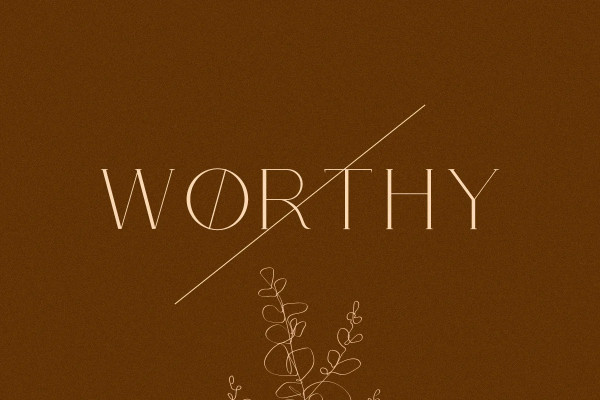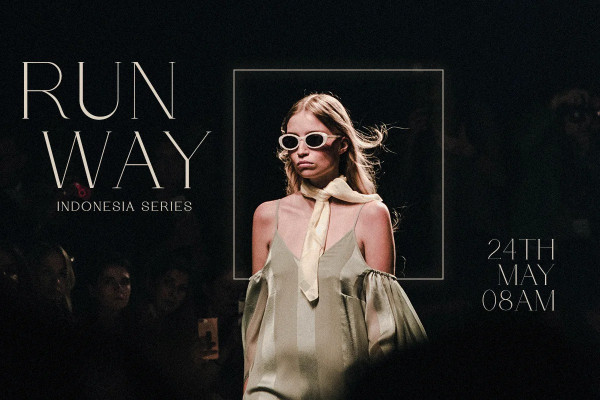
Leony Font
Leony Font – Elegant Serif Font, a beautiful and modern typeface with a stylish flair. Perfect for adding a touch of sophistication to your designs, Leony is great for logos, invitations, and branding.